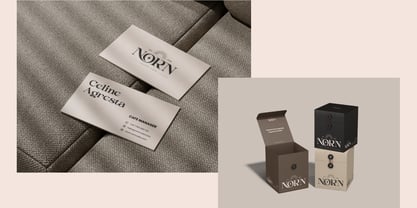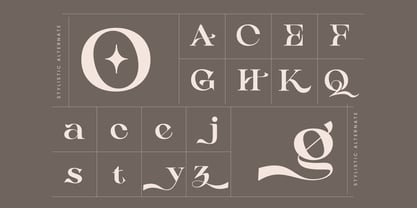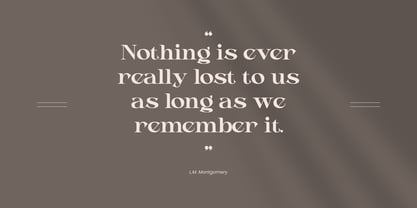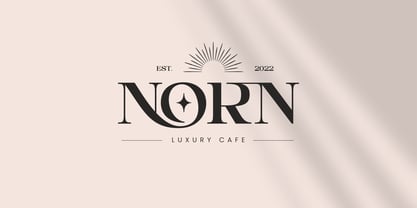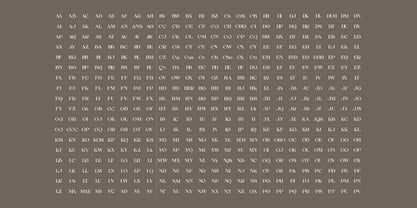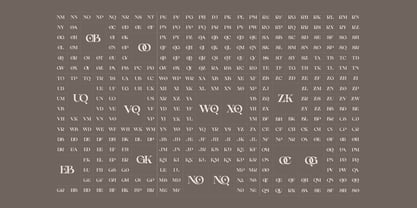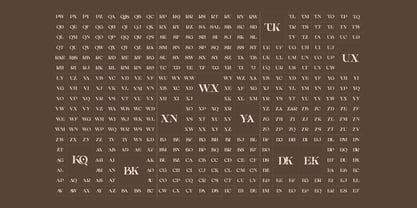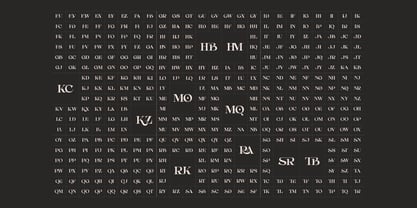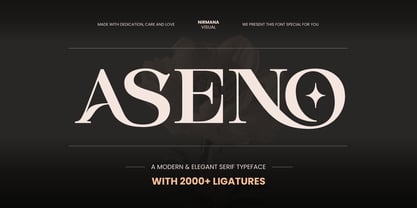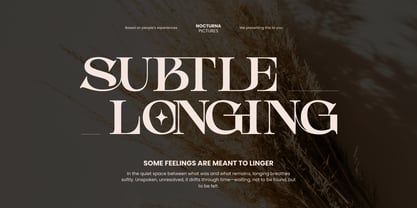
Aseno Modern
by Nirmana Visual
The Aseno Modern Font Family was designed by Sigit Dwipa and published by Nirmana Visual. Aseno Modern contains 2 styles and family package options. More about this family
Aseno is a sophisticated serif typeface designed for those who believe that typography is an art form. While its roots are firmly planted in the timeless traditions of high contrast serif design, Aseno breaks free from the grid with an extraordinary library of over 2,000 ligatures. This isn't just a font; it’s a toolkit for creating bespoke, hand-lettered aesthetics with the ease of digital typesetting. Key Features The Ligature Powerhouse: With a staggering 2,000+ custom ligatures, Aseno automatically transforms standard pairings into fluid, interlocking works of art. From subtle connections to dramatic, sweeping flourishes, every word becomes unique.
Designers: Sigit Dwipa
Foundry: Nirmana Visual